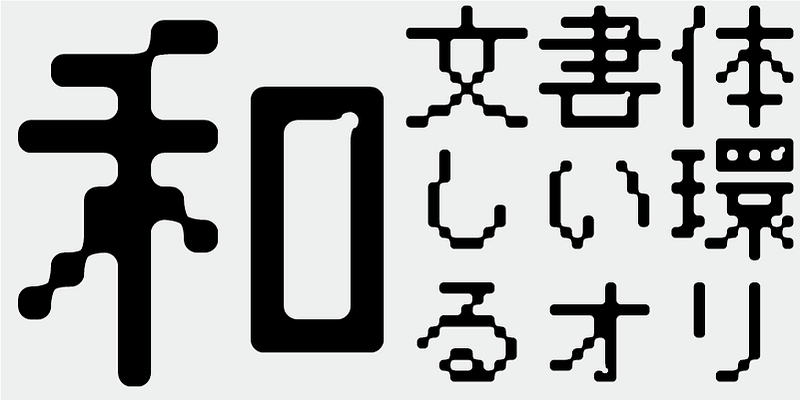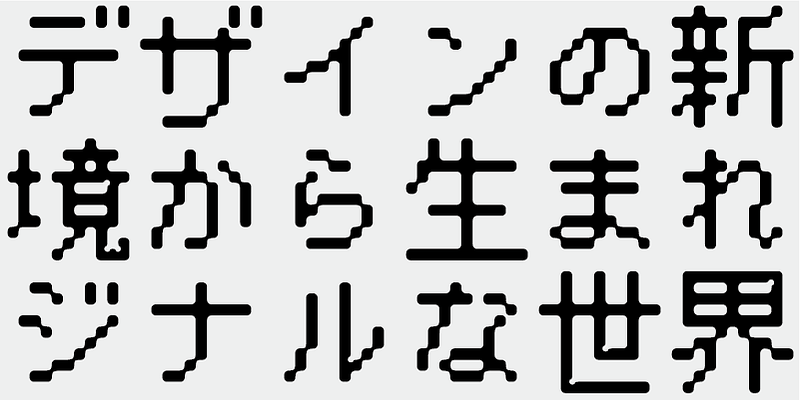
A good level of legibility is retained within the 11 x 11 grid used for simplification. Named not for “digital combination”, but “digital kombu (kelp)”, it’s like seaweed floating on the screen. This typeface won a TDC Annual Award.